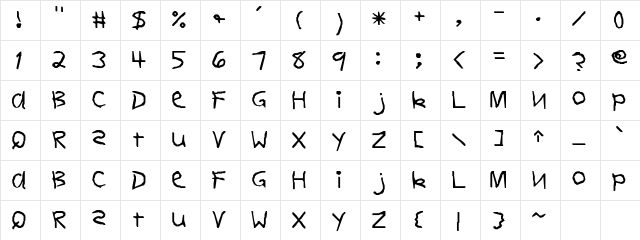
FirstGrader-Normal Free Font
FirstGrader-Normal
Year: 1991
Design Context for FirstGrader-Normal
FirstGrader-Normal is a composed and adaptable typeface that performs quietly and consistently across a wide range of design contexts.